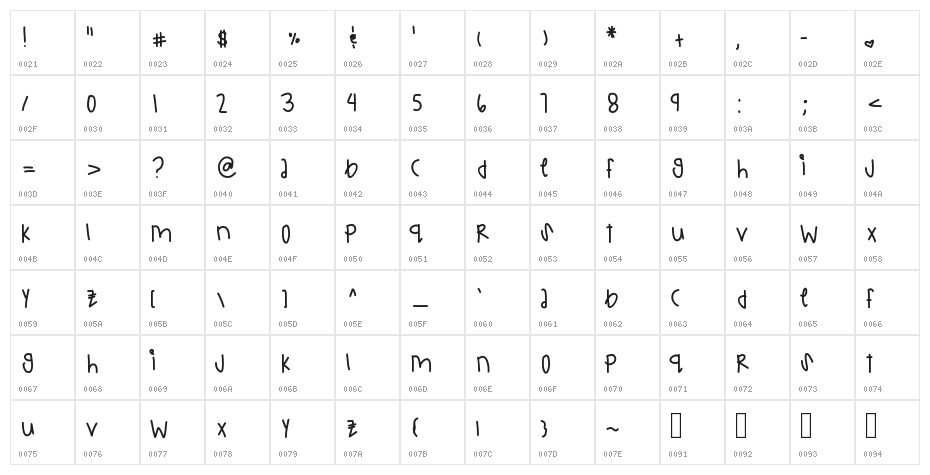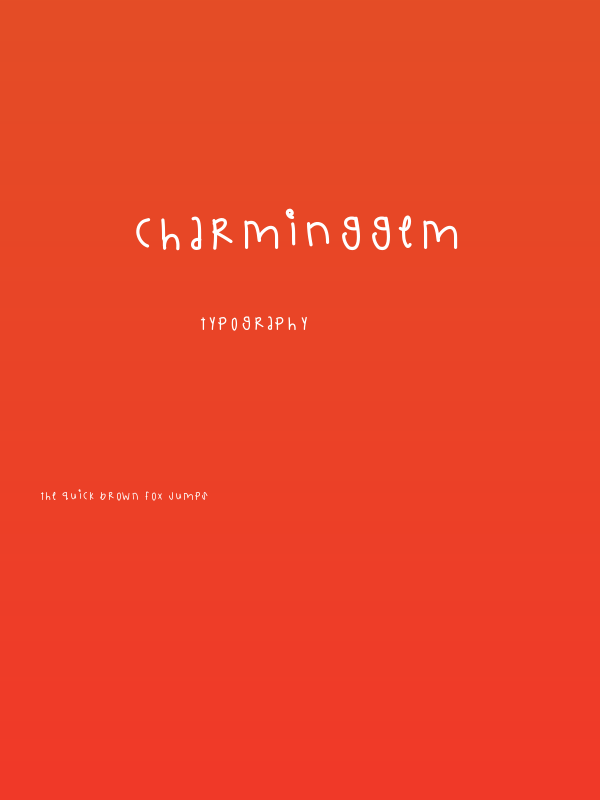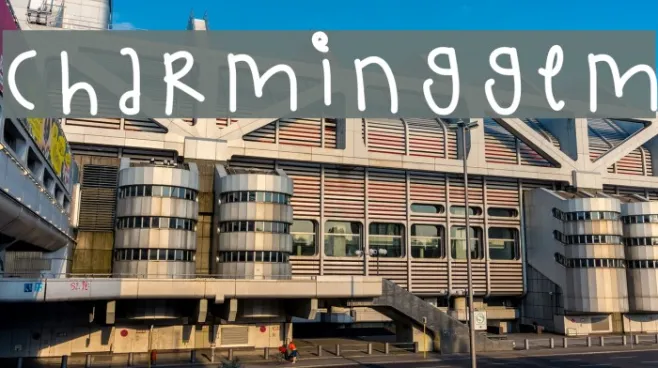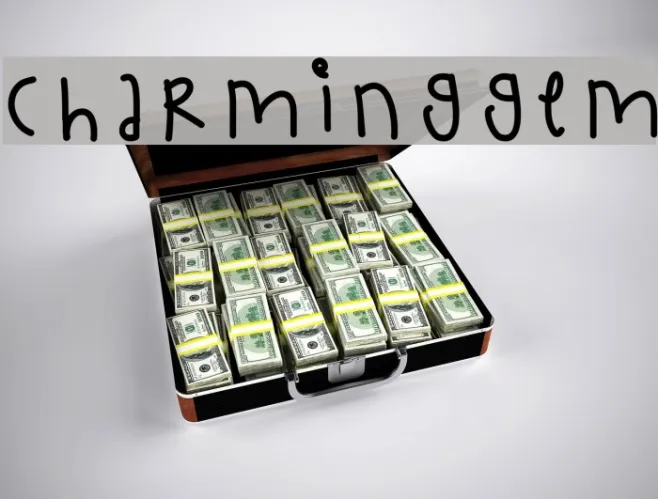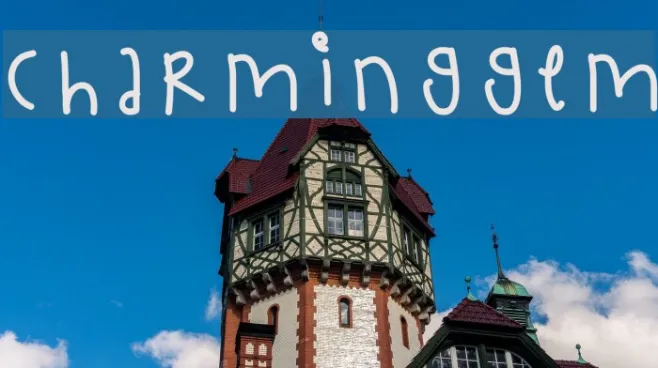
CharmingGem Font
CharmingGem Description
This playful and whimsical font features a handwritten style with a casual and friendly appearance. The characters are slightly irregular, adding a touch of charm and personality. The uppercase and lowercase letters maintain a consistent flow, with rounded edges and a smooth, flowing line quality. The numerals and special characters complement the overall style, enhancing its playful nature. This font is perfect for projects that require a personal touch, such as greeting cards, invitations, or children's books.
| Use Case | Headlines, Invitations, Greeting Cards |
| Proposed Projects | Ideal for greeting cards, invitations, children's books, and playful branding. |